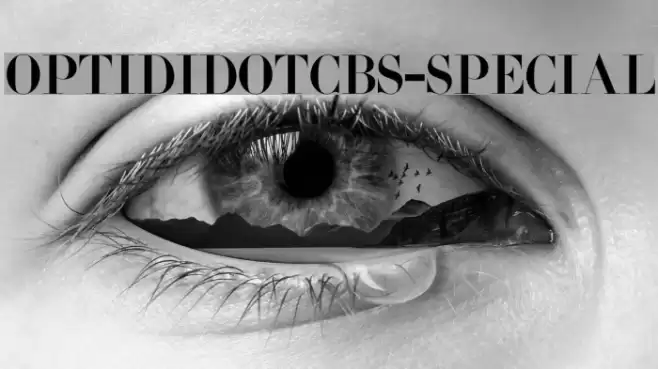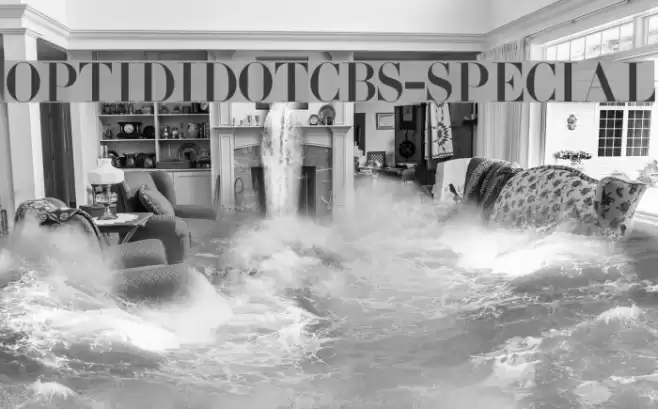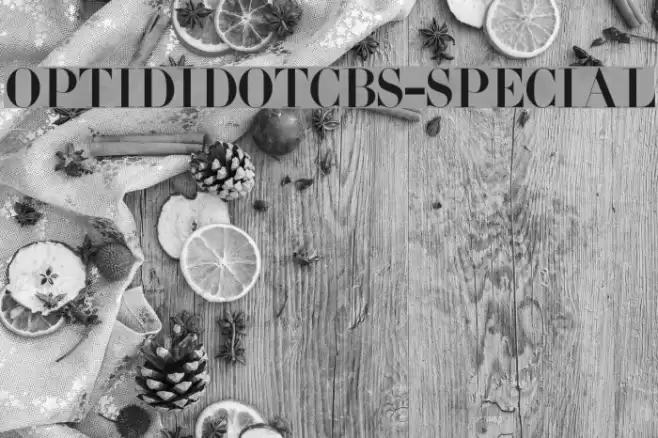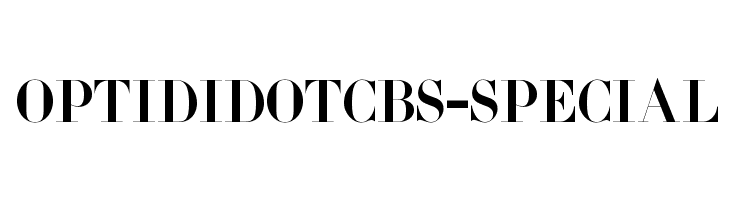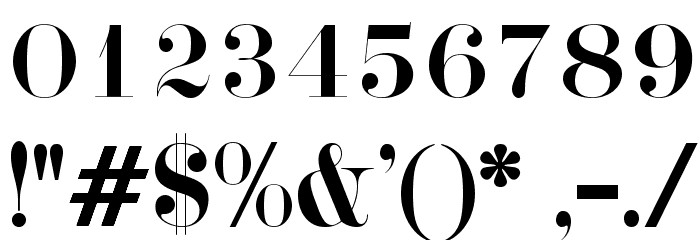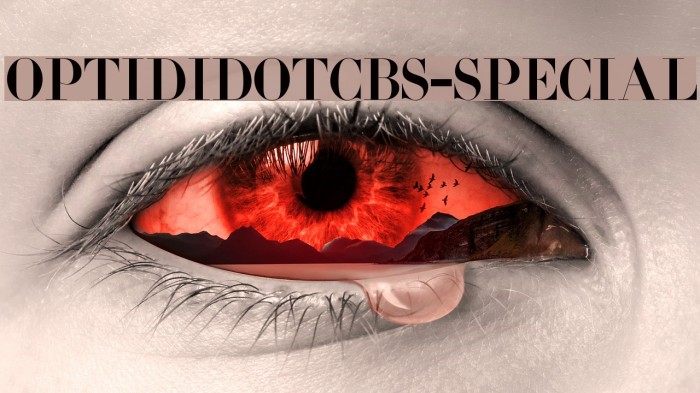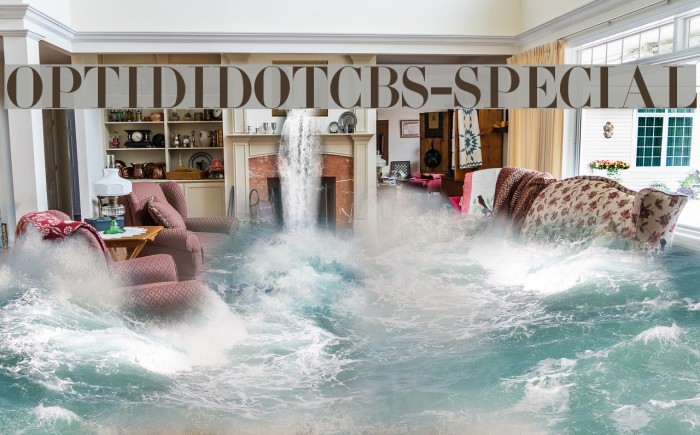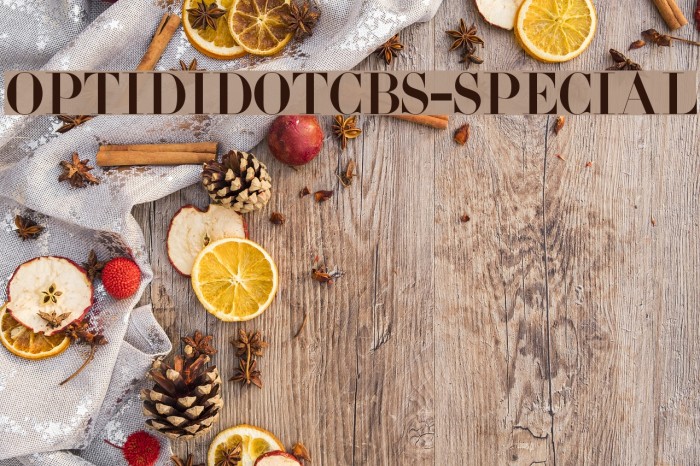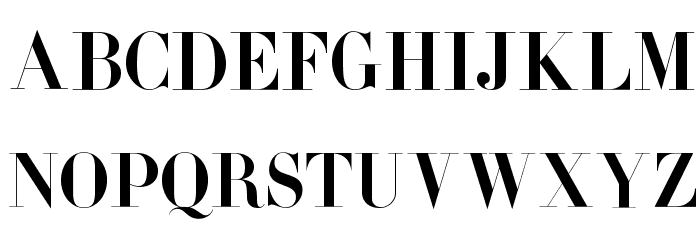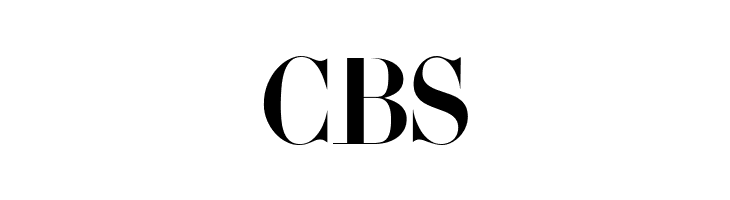
OPTIDidotCBS-Special Font
OPTIDidotCBS-Special Description
This font is a modern serif typeface characterized by its high contrast between thick and thin strokes, giving it an elegant and sophisticated appearance. The serifs are sharp and pronounced, adding a touch of formality and refinement. The uppercase letters are tall and commanding, while the lowercase letters maintain a consistent style with slightly more delicate features. The numerals are distinct and clear, with a similar high contrast in stroke weight. Special characters are designed with the same attention to detail, ensuring consistency across all glyphs. The overall design is both timeless and versatile, suitable for a variety of applications where a touch of elegance is desired.
A modern serif typeface with high contrast and elegant, refined serifs from Uncategorized fonts.
- Proposed Projects: Ideal for luxury branding, editorial design, fashion magazines, and high-end product packaging.
- Use Case: Headlines, Logos, Editorial design